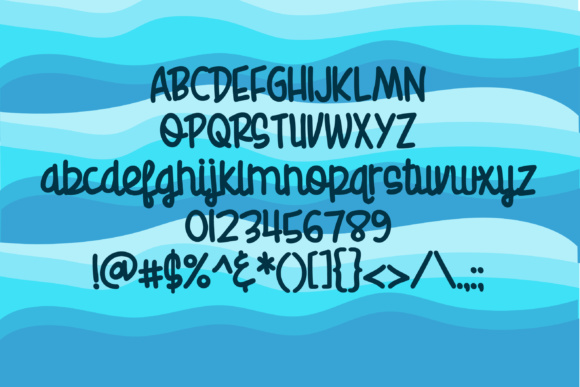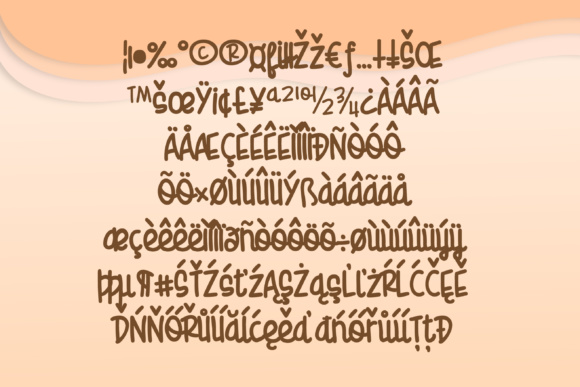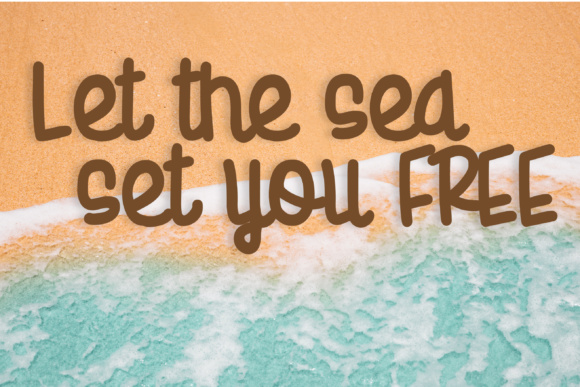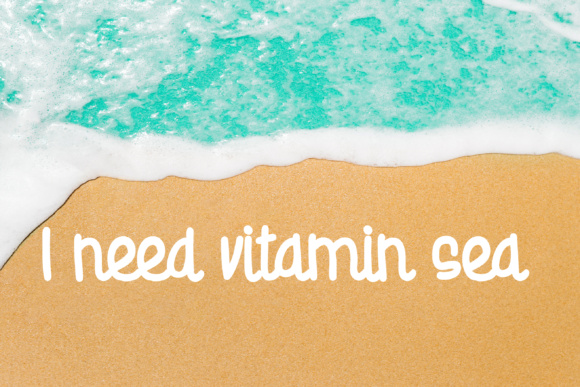
HomeScript FontsZP Seaside Font Script Fonts ZP Seaside Font FacebookXPinterestWhatsApp ZP Seaside Font Poster 2 ZP Seaside Font Poster 3 ZP Seaside Font Poster 4 ZP Seaside Font Poster 5 About ZP Seaside Font This hand-written quasi-script is a fun, youthful quasi-cursive that add a bit of casual-ness to any project. DOWNLOAD NOW People also explored Jeannica Font Nopember Font Bilberry Muffin Font Icing Flawless Font Salvatore Font Mr Blaketon Paint Kicks The Brighter Font 343 0 TagsZP Seaside Font Previous articlePN Breakfast Burrito FontNext articlePN Époisses De Bourgogne Font LEAVE A REPLY Cancel reply Comment: Please enter your comment! Name:* Please enter your name here Email:* You have entered an incorrect email address! Please enter your email address here Website: Save my name, email, and website in this browser for the next time I comment. Personal Use Free Leadent Script Personal Use Free Read more about this font Valentine Chips Personal Use Free Read more about this font Mail Ray Stuff Personal Use Free Read more about this font Lemon Milk Font Personal Use Free Read more about this font BLOG How to Cut Any Font on Cricut: Convert a Font to SVG (Free) Turn any font into a clean SVG so it cuts crisp on Cricut - a quick 3-step workflow using a free font-to-SVG tool. Best Fonts for YouTube Videos: Make Your Thumbnails Stand Out 5 Fonts That Will Dominate Design Trends in 2026 Elegant Wedding Invitation Fonts – Handwritten & Script Fonts